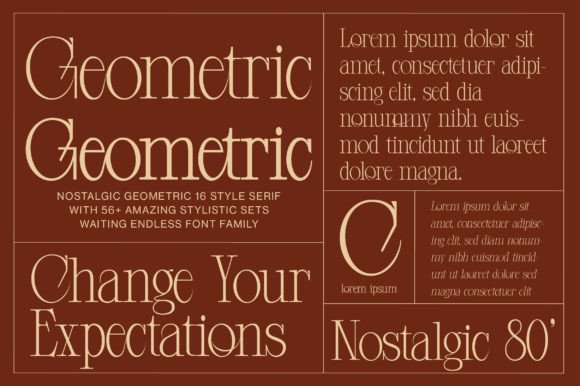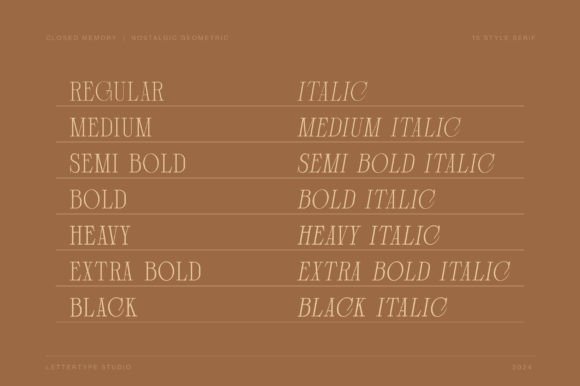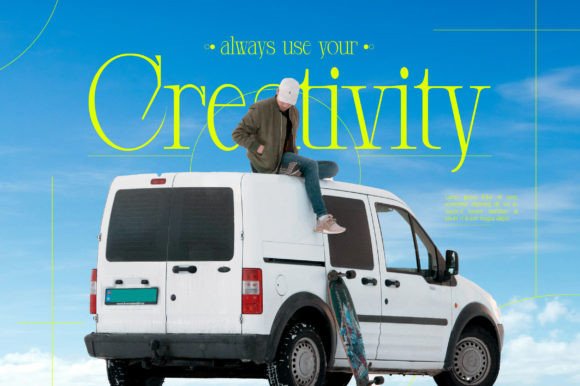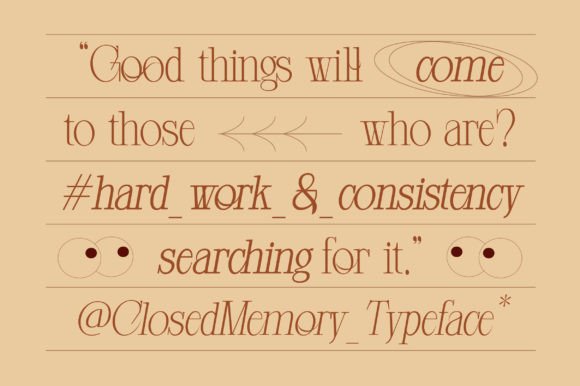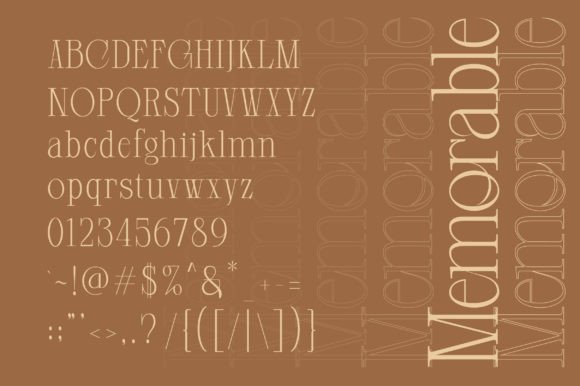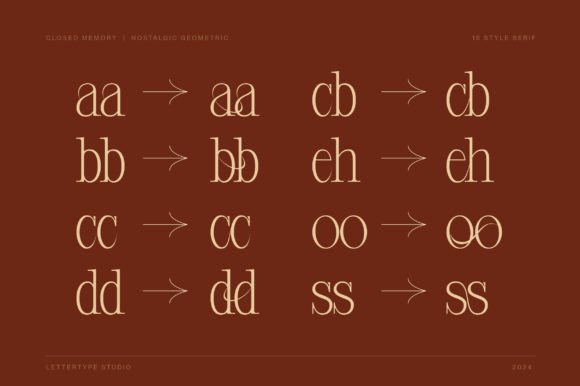
The Retro Revival: Uncovering the Magic of Closed Memory Font
As I scrolled through my old design portfolio, a wave of nostalgia washed over me. It was a project from my early days as a designer, a website for a local band that I had lovingly crafted with pixel art and bold, neon-colored fonts. The font that stood out to me the most was one I had used extensively – a classic, nostalgic serif font that screamed 80s style and swagger.
That font was the Closed Memory Font, a design that perfectly encapsulates the essence of the 80s. Its bold, geometric shapes and exaggerated serifs evoke a sense of nostalgia and retro charm, transporting us back to a bygone era of neon lights, big hair, and even bigger personalities. As a designer, having access to such a versatile font is invaluable – it adds a touch of authenticity to any project, whether it’s a retro-themed website, a video game, or even a music album cover.
Closed Memory Font Key Features
- Unique Characteristic: The font features a unique “closed” design, where the letters are connected at the stems, creating a cohesive and harmonious visual effect.
Closed Memory Font Review
Overall, I think the Closed Memory Font is a unique and interesting addition to the world of typography. There are some aspects where it truly shines, making it a great choice for certain projects.
- Unconventional Design: The Closed Memory Font’s unique design, featuring overlapping letters, adds a touch of sophistication and creativity to any project.
- Highly Customizable: The font is highly customizable, making it easy to adjust the spacing, size, and other settings to fit your specific needs.
- Good for Emphasis: The Closed Memory Font is perfect for creating emphasis in text, making it stand out and catch the reader’s attention.
- Readability: While the font looks great, it can be a bit challenging to read, especially at smaller font sizes.
- Not Suitable for Body Text: The font is best used for headings or emphasis, as it can be overwhelming for large blocks of text.
Overall, I think the Closed Memory Font is a great choice for designers who want to add some creativity and flair to their projects. However, it’s essential to keep its limitations in mind and use it judiciously to avoid readability issues.
To maximize the effect of the Closed Memory Font, use it in conjunction with other design elements, such as shadows, gradients, and textures. Experiment with different font sizes, colors, and styles to create a unique visual identity.
The Closed Memory Font is ideal for use in logos, headings, and titles where you want to create a sense of depth and dimensionality. It’s also great for use in infographics, presentations, and other visual content where you want to add visual interest.